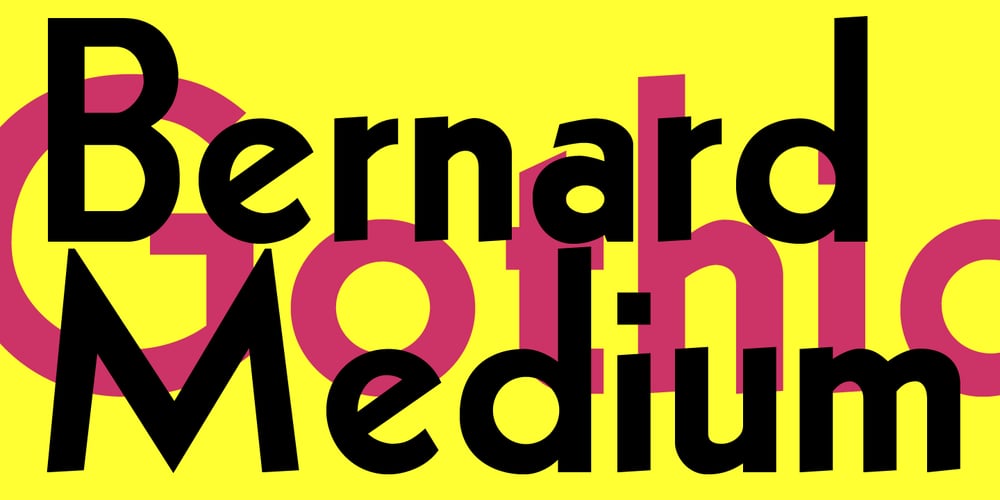
Bernhard Gothic Medium
Bernhard Gothic Medium font
Bernhard Gothic Medium Font Family was designed by Jordan Davies and published by Wooden Type Fonts. Bernhard Gothic Medium contains 1 styles and family package options. A version of Bernhard Gothic Medium. Quite useful for advertising.